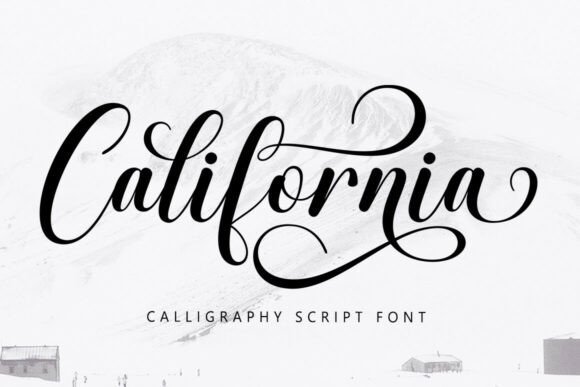
The Art of Elegant Typography: Introducing California Font
Have you ever been swept away by the romance of a handwritten love letter, or the sophistication of a beautifully crafted invitation? For designers and creatives, the perfect font can evoke emotions and set the tone for any project. It’s in these moments that the California Font comes to life – a calligraphy font that beautifully blends modern style with classic elegance.
With its refined, clean, and feminine aesthetic, the California Font is a valuable tool for designers seeking to add a touch of glamour to their work. From formal invitations to fashion and beauty brands, this versatile font is perfect for any project that requires a sophisticated and romantic look. Whether you’re a seasoned designer or just starting out, the California Font is sure to become a trusted companion in your creative journey.
California Font Key Features
- Unique Characteristics: California Font features a distinctive, cursive script style with elegant swashes and flourishes, making it ideal for creative and artistic applications.
- Font Weight: Available in Light, Regular, Medium, Bold, and Extra Bold weights, allowing for a range of visual effects and emphasis.
California Font Review
As a designer, I was excited to try out the California Font. Here’s my honest take:
- Casual, yet elegant feel: California Font has a laid-back vibe that works well for lifestyle and fashion brands.
- Legibility: The font is highly legible, even at smaller sizes, making it perfect for body text.
- Variety of weights: The font family includes multiple weights, from light to bold, offering plenty of options for designers.
- Lack of sophistication: While California Font is great for casual brands, it may not be the best choice for more formal or professional projects.
- Not suitable for small text: The font’s spacing and letterforms can make it difficult to read in very small sizes.
- Not highly customizable: While the font family offers multiple weights, it may not be possible to customize the font as much as some designers would like.
The California Font is a solid choice for designers looking for a casual, yet elegant font. While it has its limitations, it’s a great option for lifestyle and fashion brands. Just be aware of its potential drawbacks and use it accordingly.
The California Font is a great choice for:
- Food and drink menus
- Travel and tourism brochures
- Summer-themed designs
For the most out of the California Font, use it with a distressed or vintage effect to give your design a unique and laid-back feel.
Alternatives to California Font
Playfair Display is an elegant, high-end serif font. It’s ideal for use in luxury branding, high-end advertising, and premium packaging. This font has a more refined and sophisticated look compared to California Font, making it perfect for projects that require a touch of luxury and sophistication.
Comparison to California Font: Playfair Display has a more classic and refined look, while California Font is more modern and casual.
Great Vibes is a modern, elegant script font. It’s perfect for use in branding, advertising, and editorial design. This font has a more relaxed and friendly feel compared to California Font, making it ideal for projects that require a touch of warmth and personality.
Comparison to California Font: Great Vibes has a more organic and handwritten feel, while California Font is more digital and modern.
Pacifico is a modern, elegant script font with a coastal vibe. It’s perfect for use in branding, advertising, and editorial design. This font has a more relaxed and casual feel compared to California Font, making it ideal for projects that require a touch of warmth and personality.